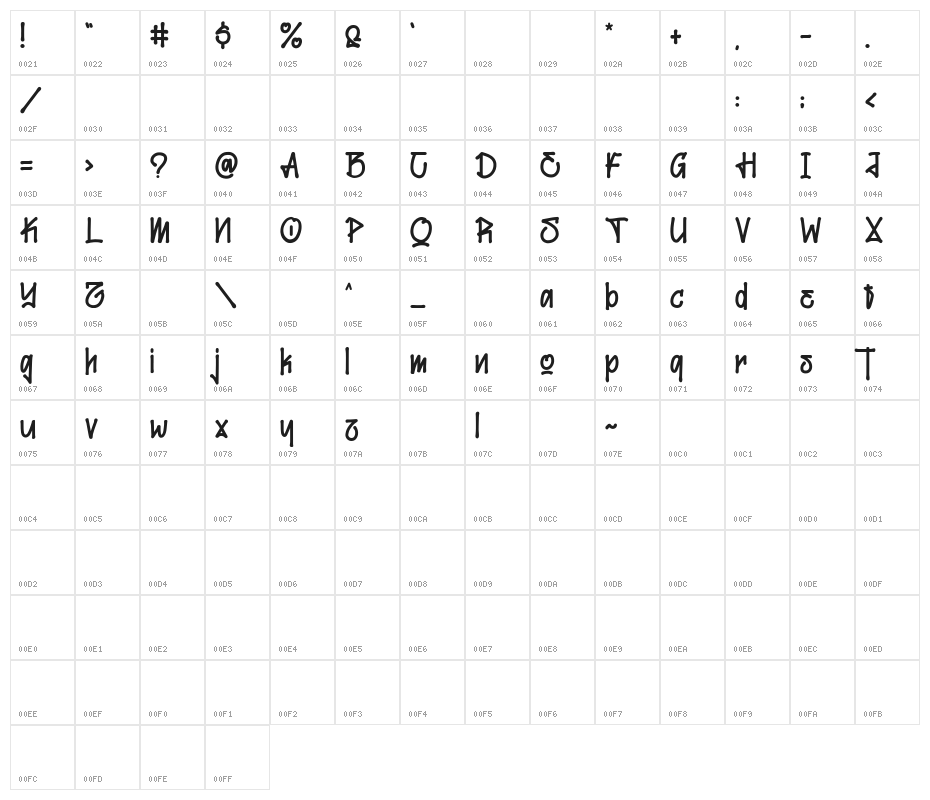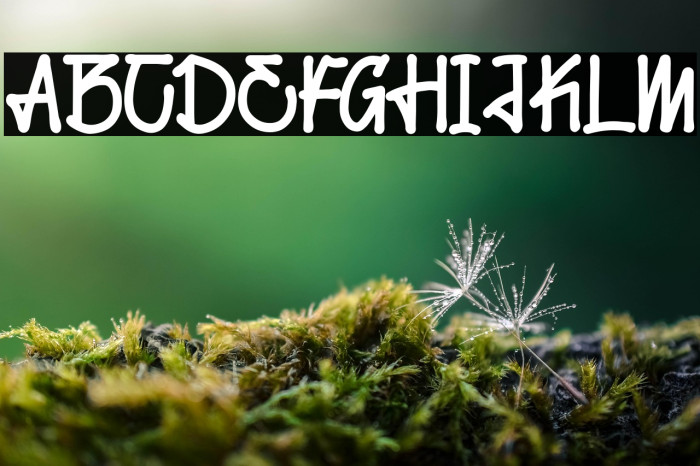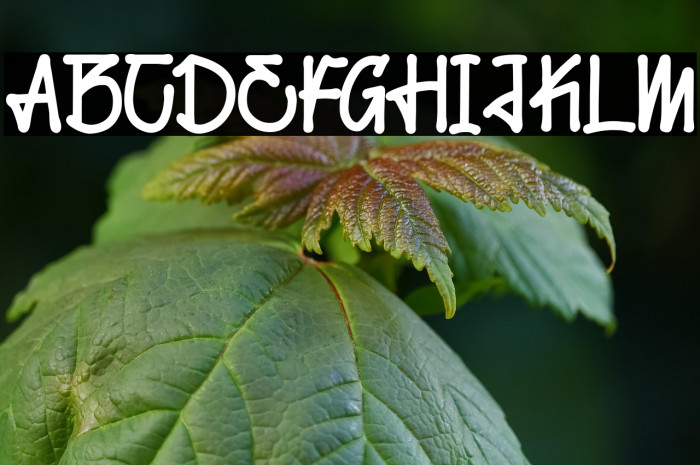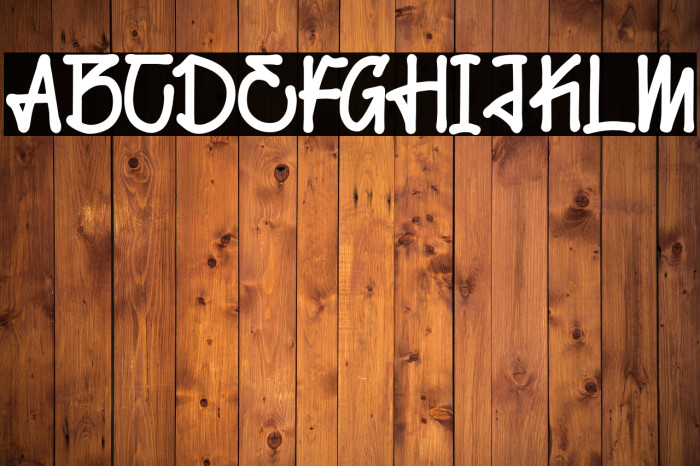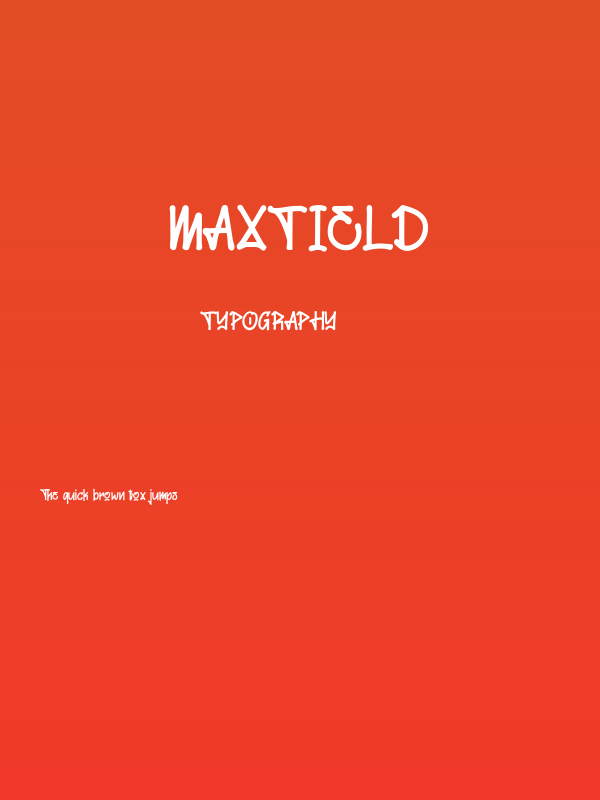
Maxtield Font
Maxtield Description
This font features a bold and playful design with a unique, hand-drawn aesthetic. The characters are crafted with a whimsical flair, incorporating rounded edges and exaggerated curves that give it a lively and dynamic appearance. The uppercase and lowercase letters maintain a consistent style, with some letters featuring distinctive loops and swirls that add to its charm. The numbers and special characters are equally expressive, making the font versatile for various creative projects. Its overall look is both artistic and approachable, making it suitable for designs that aim to capture attention and convey a sense of fun.
| Proposed Projects | Ideal for children's books, playful branding, greeting cards, and creative posters. |